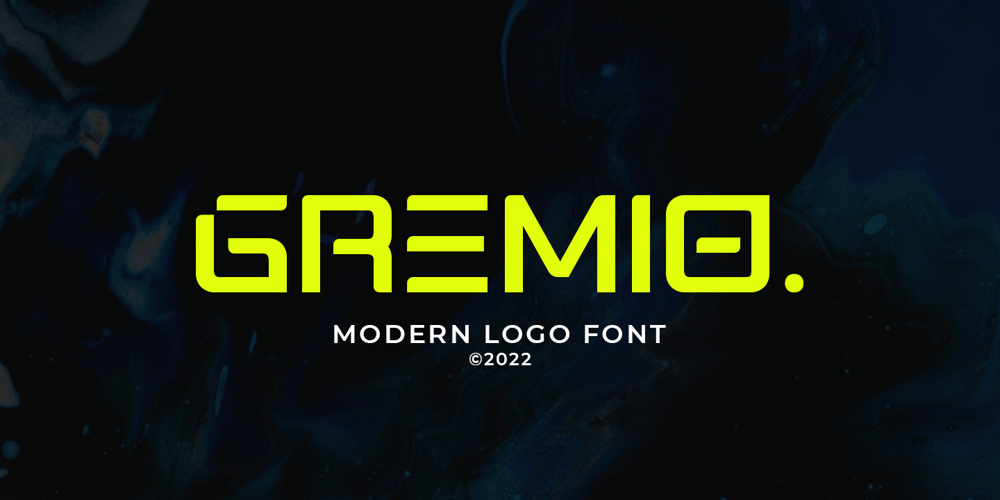
Gremio Font Family was designed by Gustian Agung Asprilla and published by Rillatype. Gremio contains 2 styles and family package options. Introducing Gremio, Gremio is a modern logo font that made to fullfill your modern logo needs! simply mix and match the uppercase and lowercase to make an instant modern logo look with ease. Gremio also comes with slanted version to give you more option. This font also comes with multilingual support.